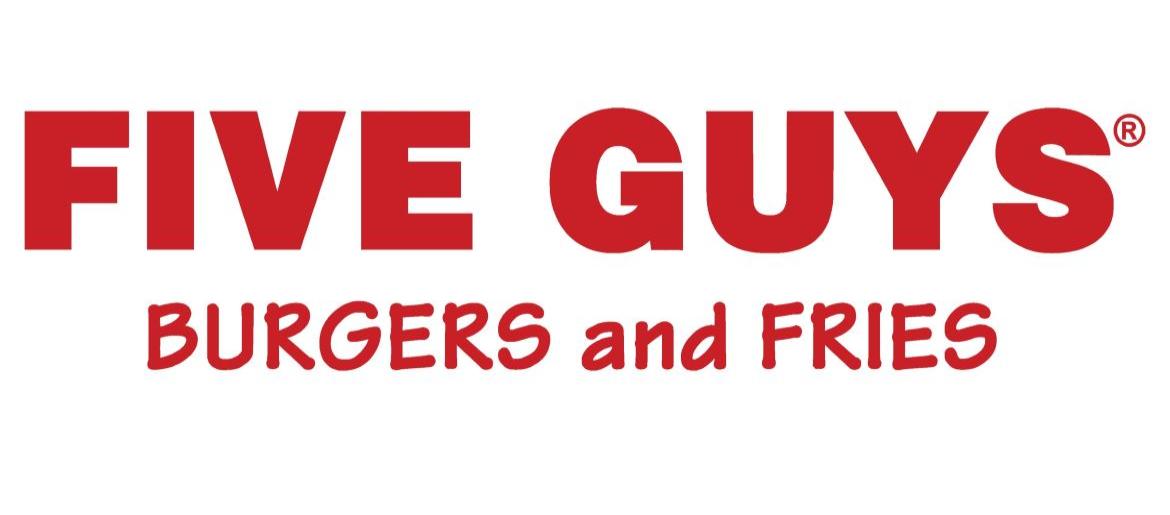
Five Guys font reflects the bold, straightforward style of the famous burger chain Five Guys. With its clean, strong lettering and no-nonsense design, the Five Guys font perfectly matches the brand’s focus on quality, freshness, and classic American flavor. I think this font is great for projects that need a simple yet confident look—like restaurant menus, food-related graphics, or bold signage. Its crisp, easy-to-read style gives off a friendly and approachable vibe, making it a favorite for designers who want to create something both modern and inviting. Using the Five Guys font instantly adds a taste of casual dining and all-American charm. Five Guys font is probably Helvetica Black, BURGERS and FRIES font is Tekton Bold. Please check the below alternatives.
Five Guys Font
About Five Guys
Five Guys is a popular fast-casual restaurant chain founded in 1986 in Arlington, Virginia. Known for its fresh, made-to-order burgers, hand-cut fries, and customizable toppings, Five Guys has grown into a global brand loved by burger fans worldwide.